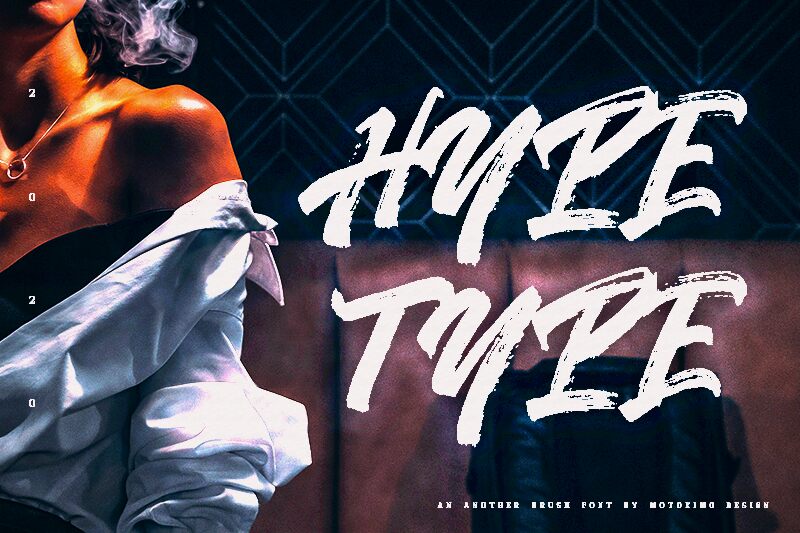
Hypetype, designed by Anton Cahyono, is an exquisite semi-bold brush font that exudes creativity and sophistication. With its expressive strokes and organic texture, Hypetype adds a touch of elegance to any project. Perfect for branding materials, logo designs, and packaging, this versatile font effortlessly captures attention. Whether you're working on a fashion campaign or a food blog, Hypetype's unique style adds personality and flair. Its semi-bold weight ensures readability without compromising on impact. Let your imagination run wild with Hypetype - the go-to choice for projects that demand a bold yet refined touch.
Hypetype
Anton Cahyono